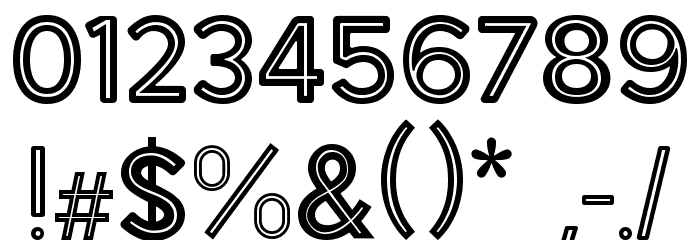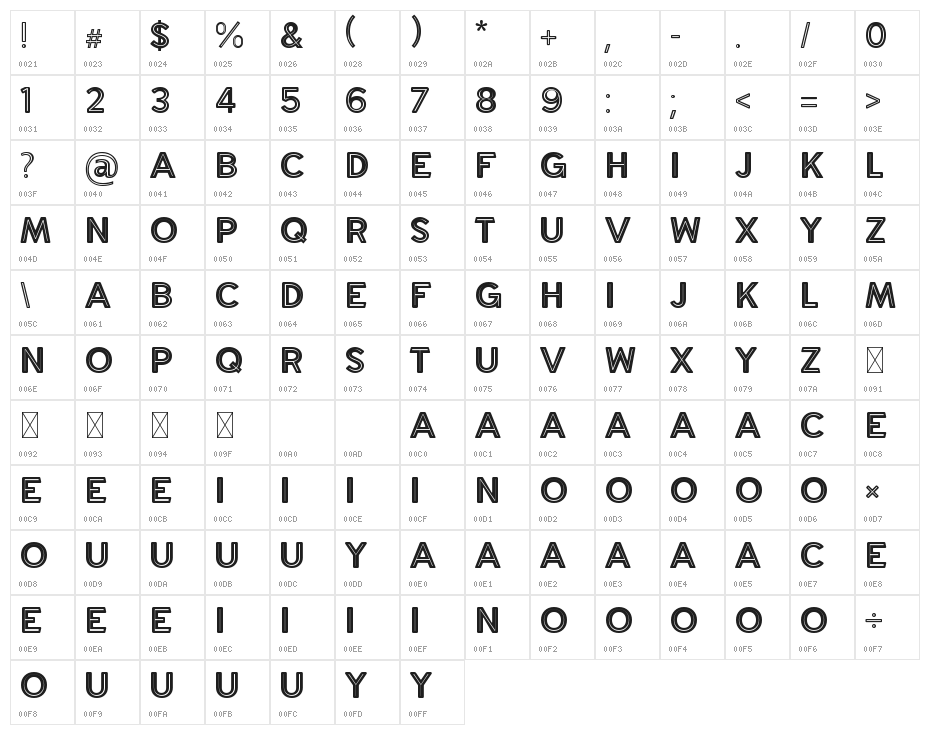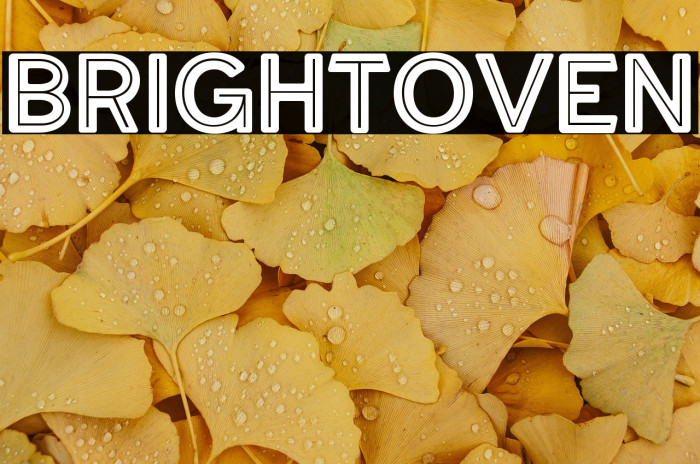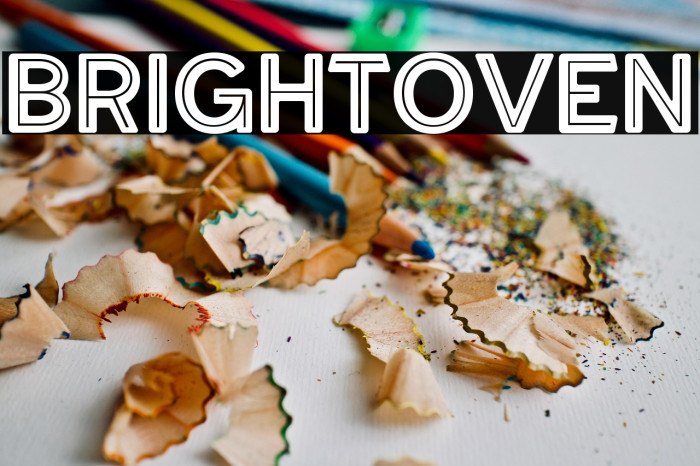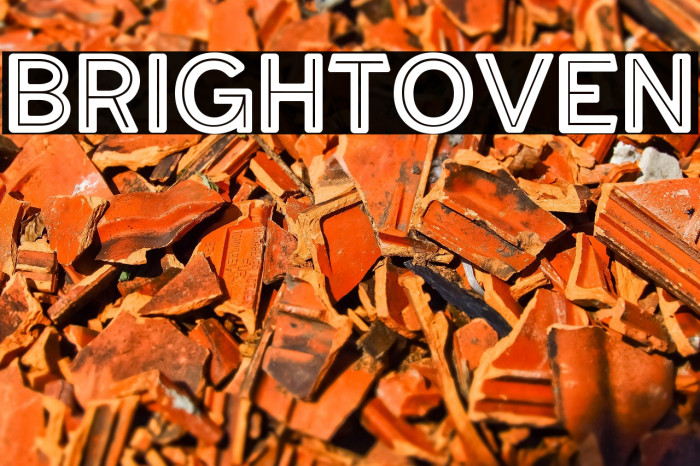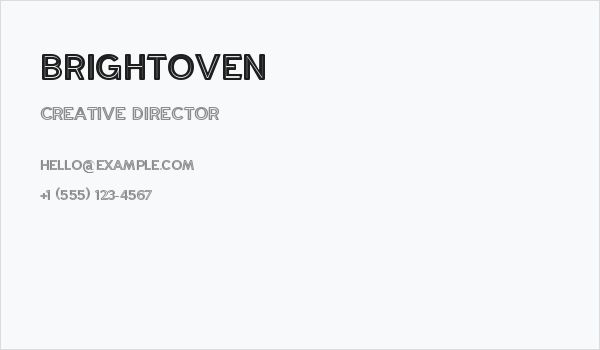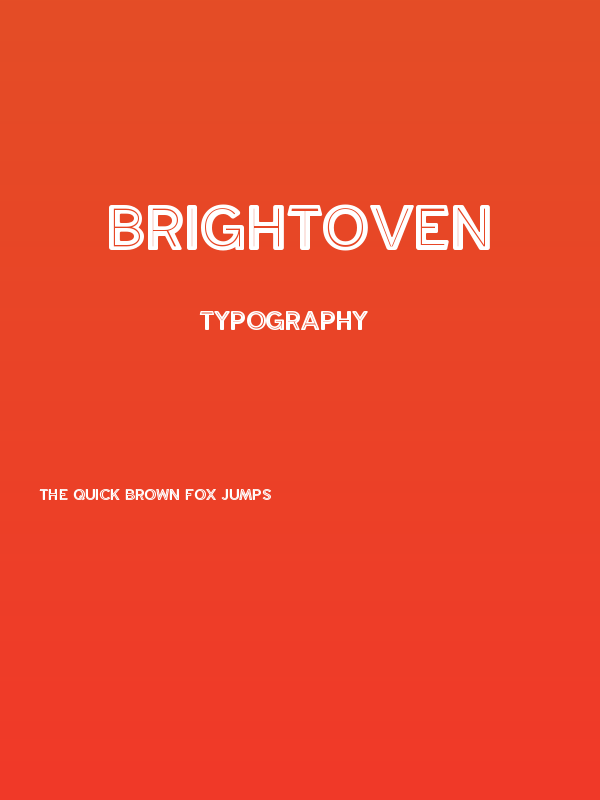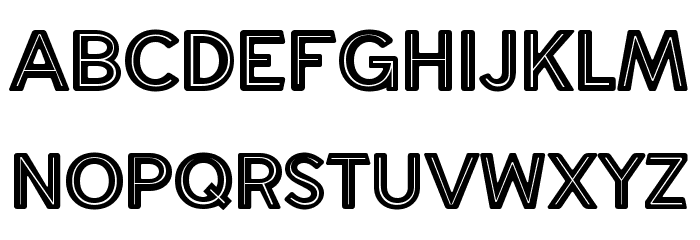
BRIGHTOVEN Font
BRIGHTOVEN Description
This font features a bold, geometric sans-serif style with a strong presence. The characters are outlined, giving a hollow effect that enhances its modern and clean aesthetic. The uppercase letters are uniform in height, with consistent stroke widths that contribute to a balanced and structured appearance. The numerals and special characters maintain the same design principles, ensuring cohesion across all elements. This font is well-suited for projects that require a contemporary and striking visual impact.